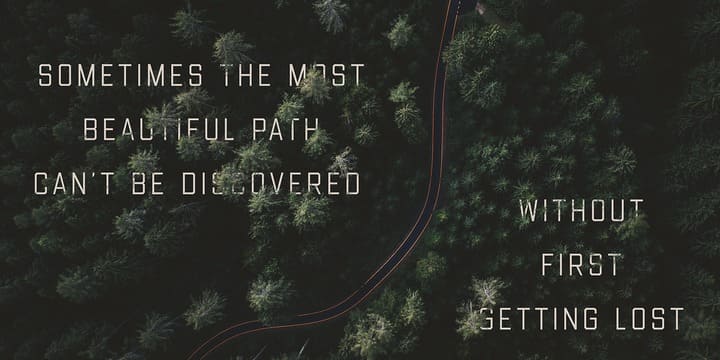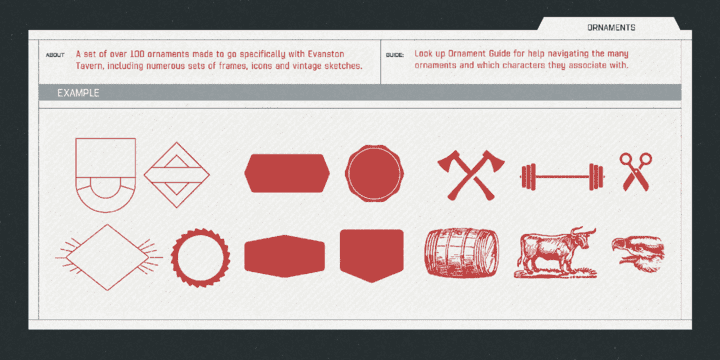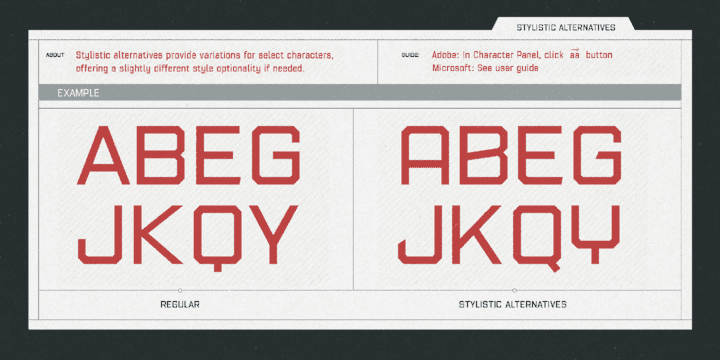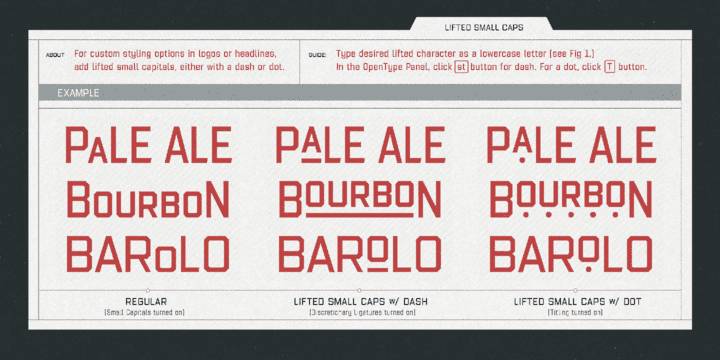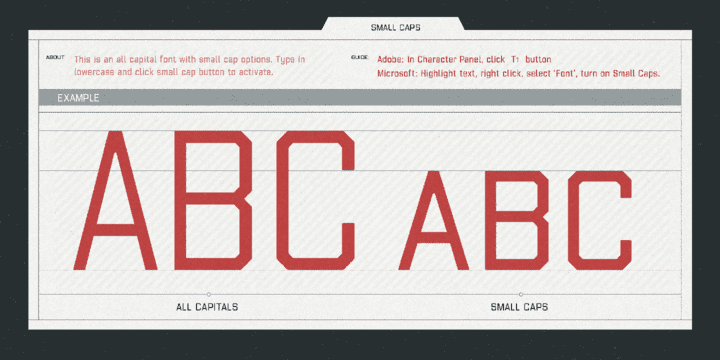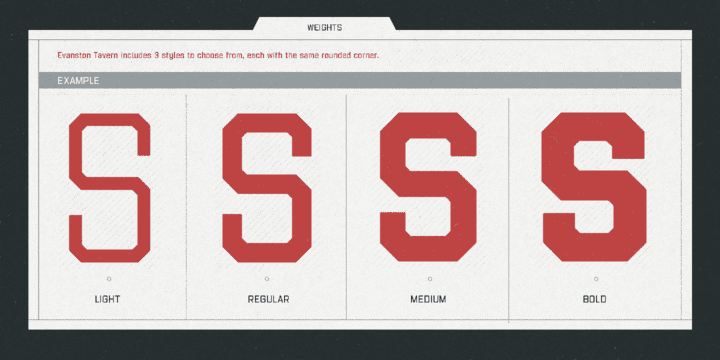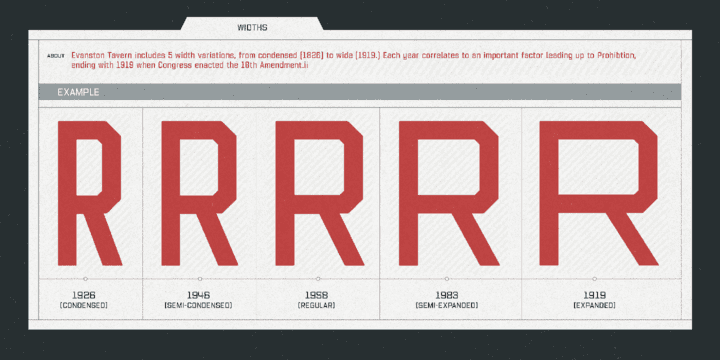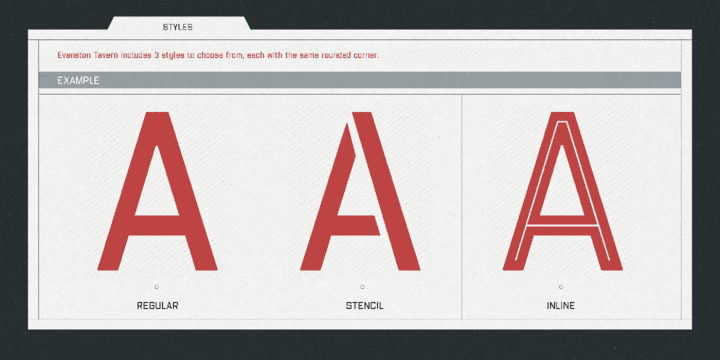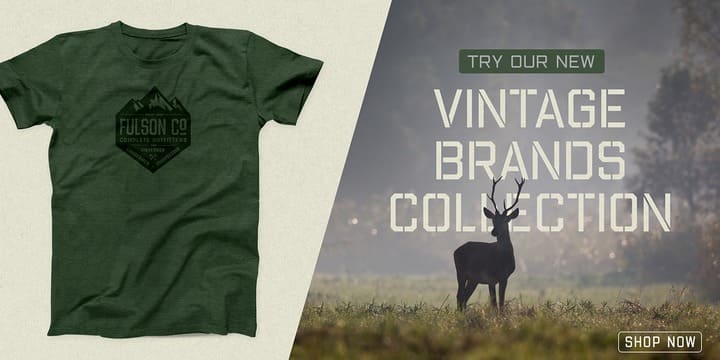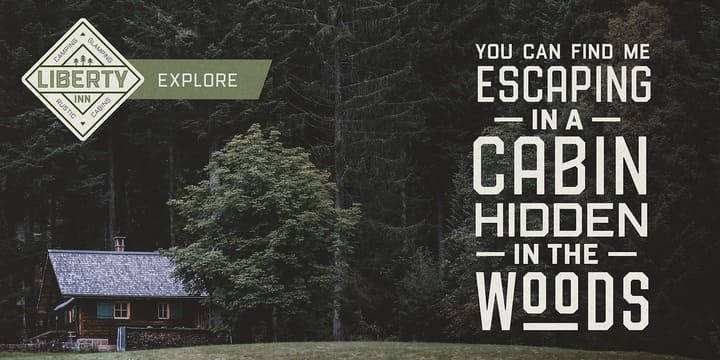
Evanston Tavern Family (61 fonts)
From Kimmy Design
Back to the modern era, Evanston Tavern is more than just a vintage inspired typeface. It works in modern and futuristic settings with multiple styles, opentype alternatives and ornamentation. The family provides a robust 61 total fonts, within it's 3 styles of regular, stencil and inline. Each sub family includes 4 weights and 5 widths. It has special features that add depth to the typeface, with discretionary ligatures and stylistic alternatives. It also includes a complimentary set of ornaments, including a vintage graphic set from the era, as well as modern frames, borders and icons.
This typeface works great at logos, packaging, and other display settings.
Pair this font with Evanston Alehouse and have a great combination of serif and sans-serif square letterforms and a large array of ornaments!
Here’s a snapshot of what you get with Evanston Tavern:
- 3 Styles: Regular, Stencil and Inline
- 4 Weights: Light, Regular, Medium and Black
- 5 Widths: 1826 (condensed), 1846 ( narrow) 1858 (regular), 1893 (wide) and 1919 (expanded)
- 2 capital Heights: Capitals and small caps
- 2 Alternatives: Discretionary Ligatures and Stylistic Alternatives
- 1 Ornaments font with over 100 graphic extras